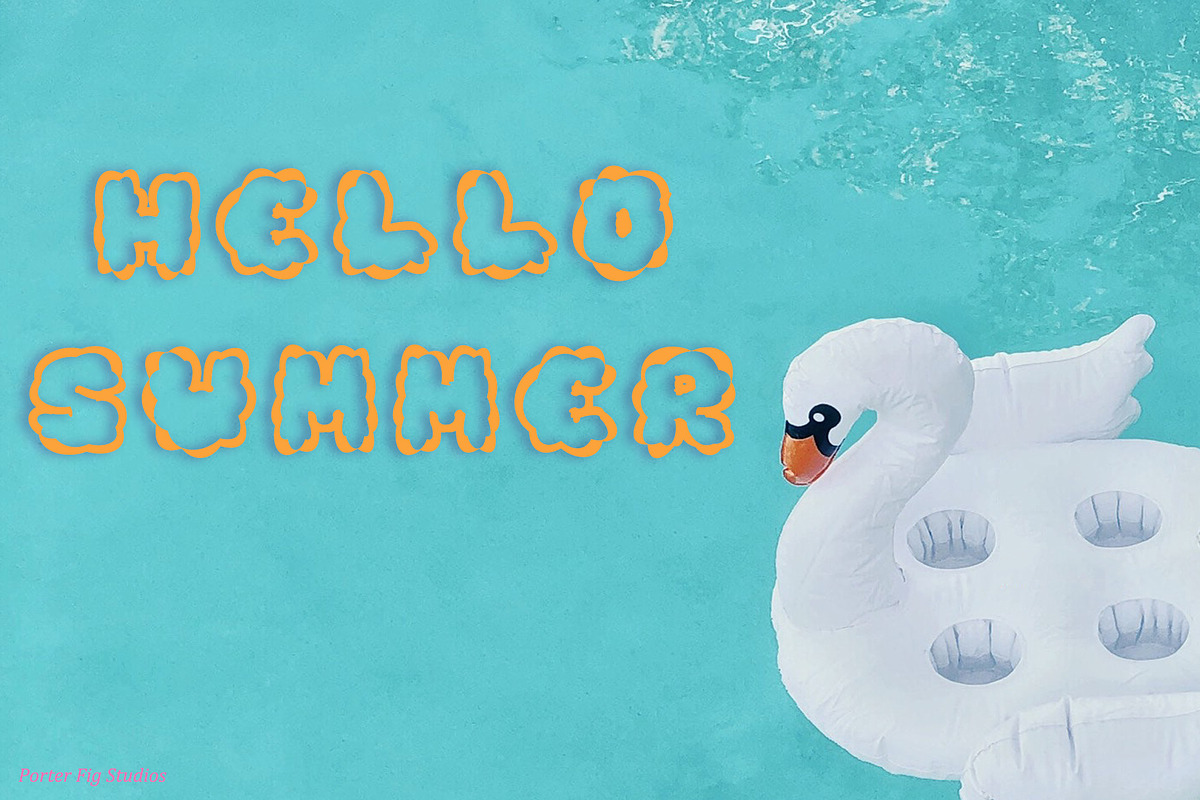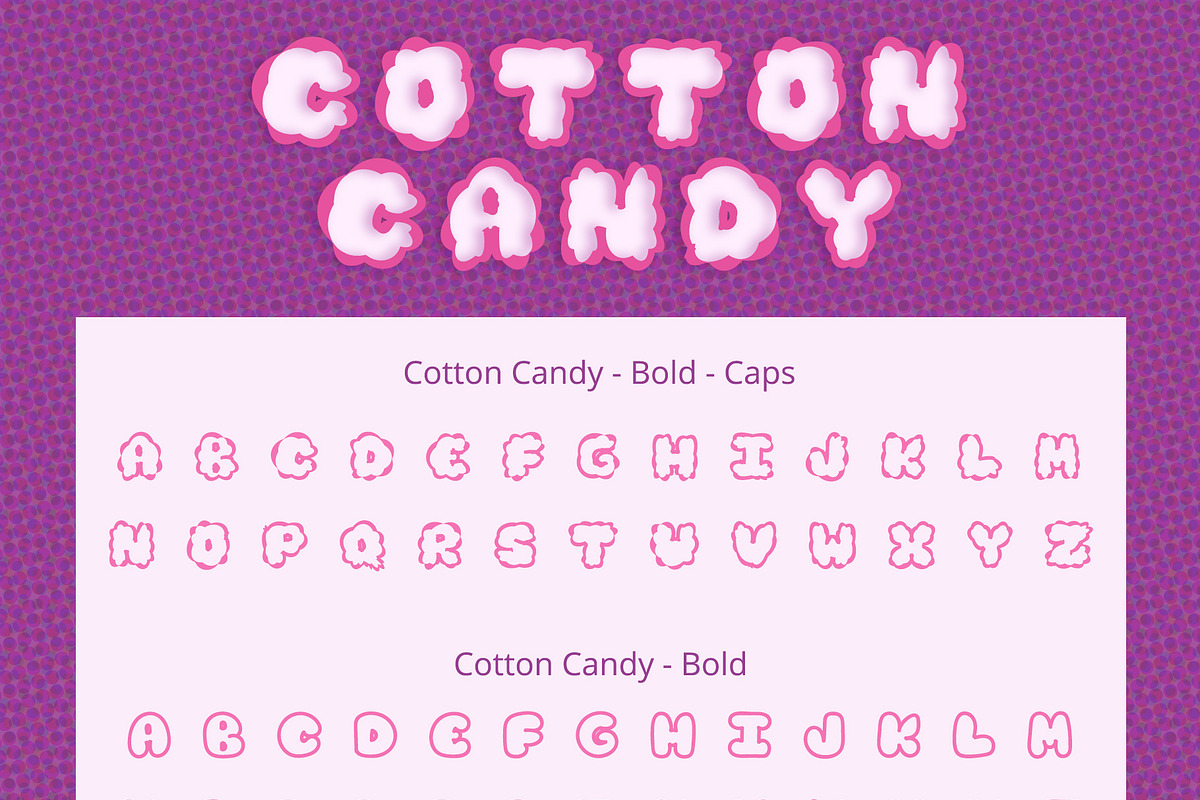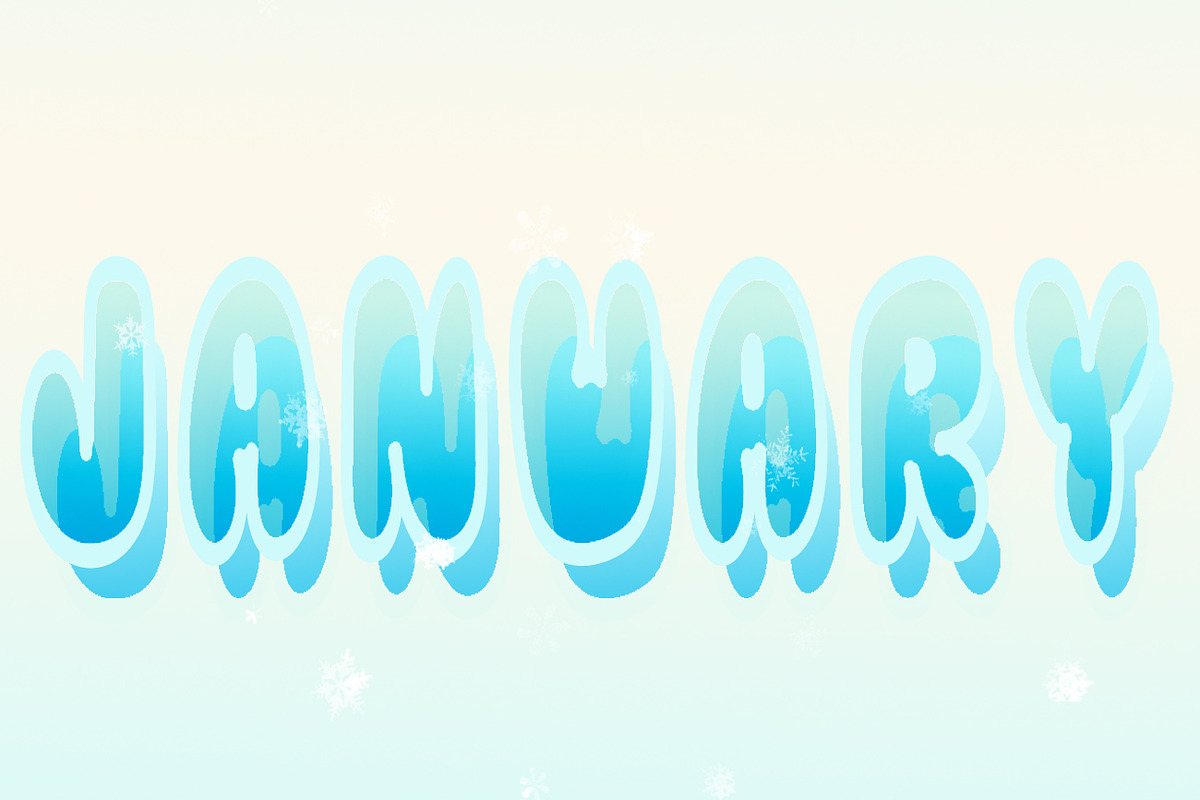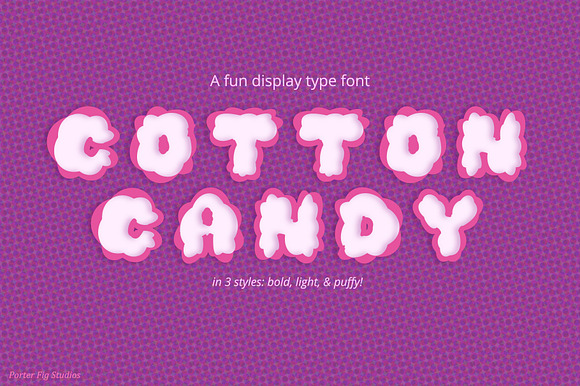
Fun Bubble Display Font Cotton Candy
Introducing Cotton Candy... a fun bubble display type font inspired by light and fluffy cotton candy at the summer fair! This font can be used in various designs. It's a great font for themed party invitations, kid's parties or educational projects, storybooks, book covers, comics, branding, and more.
- Cotton Candy Light
- Cotton Candy Bold